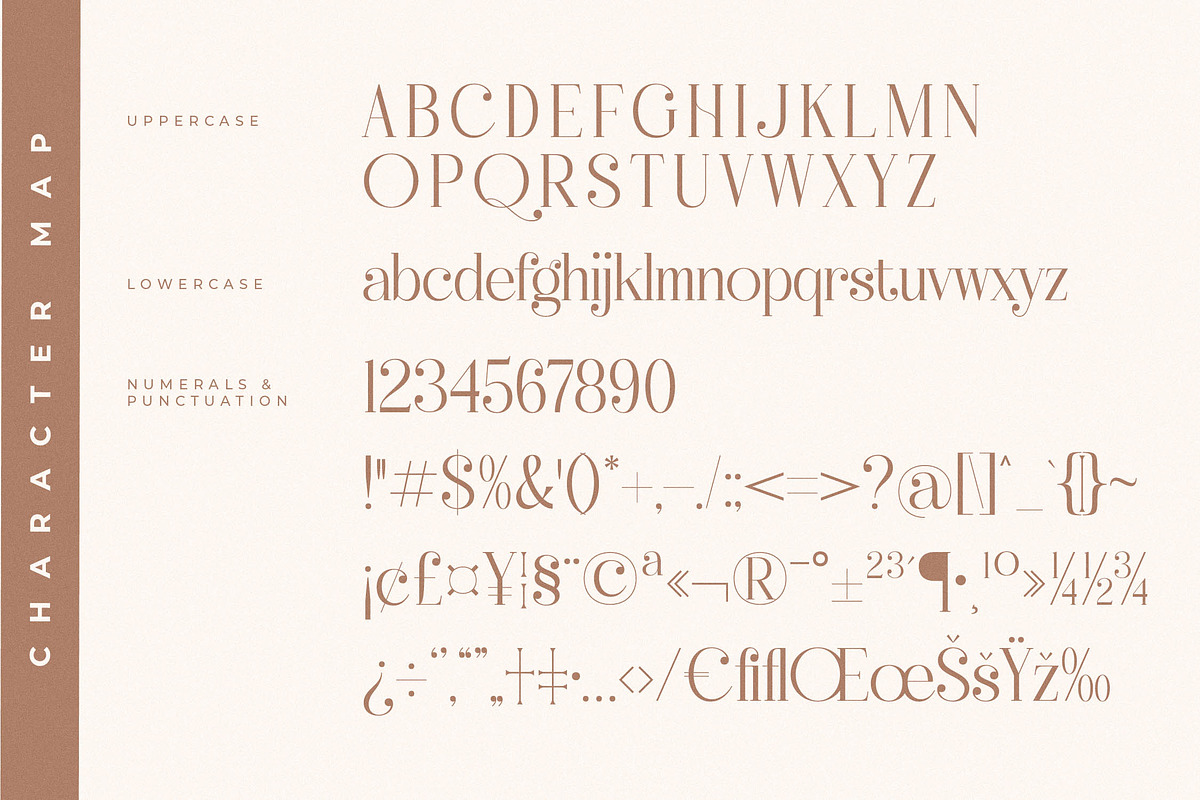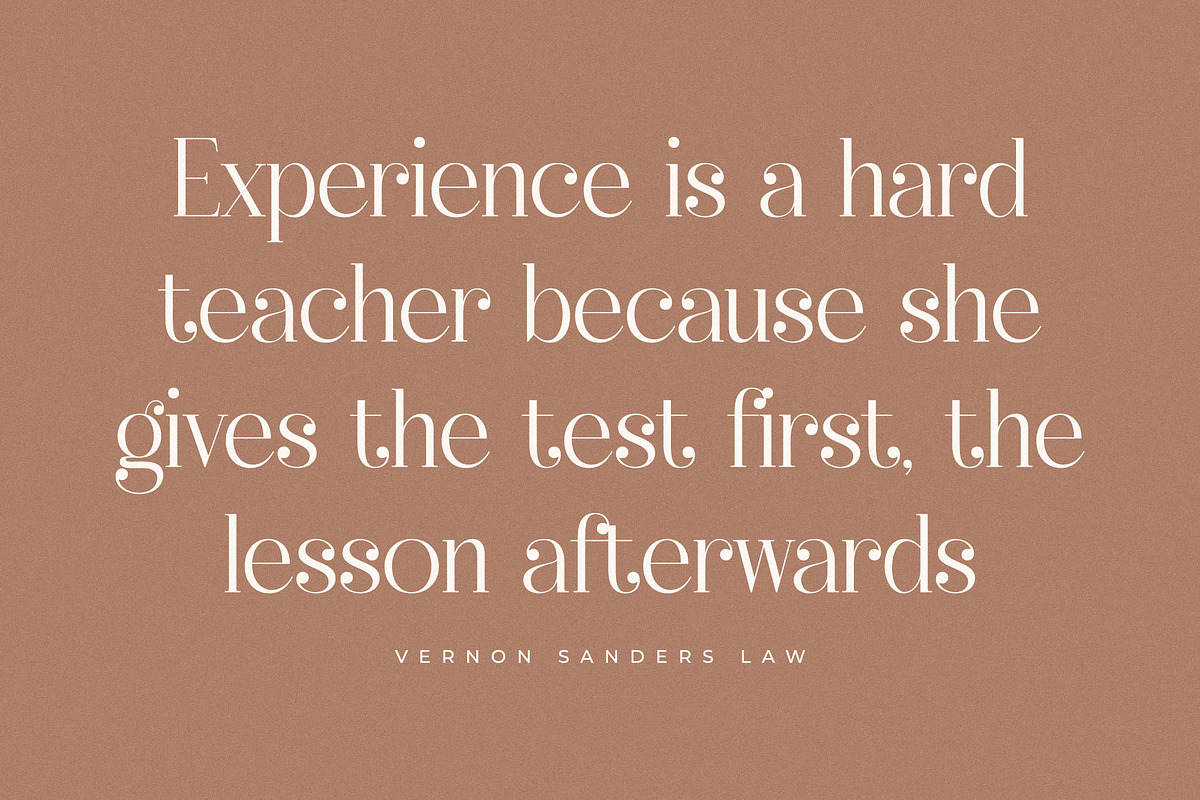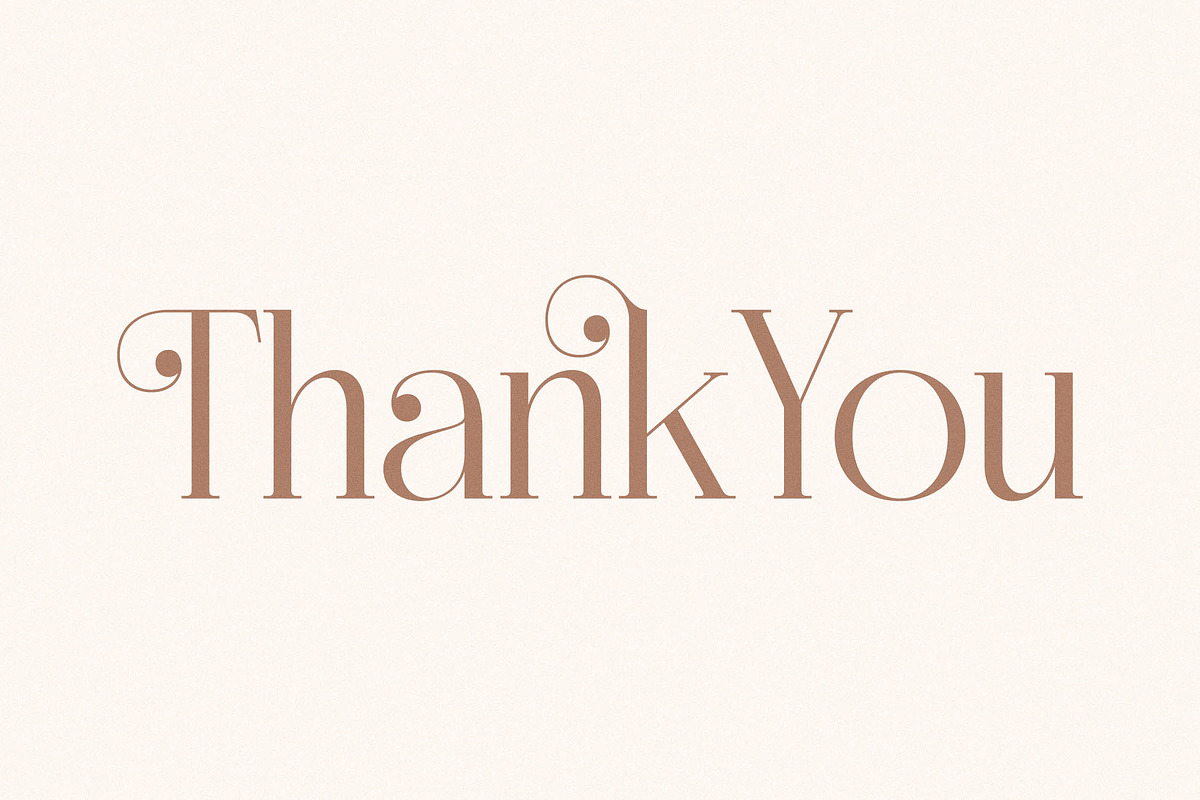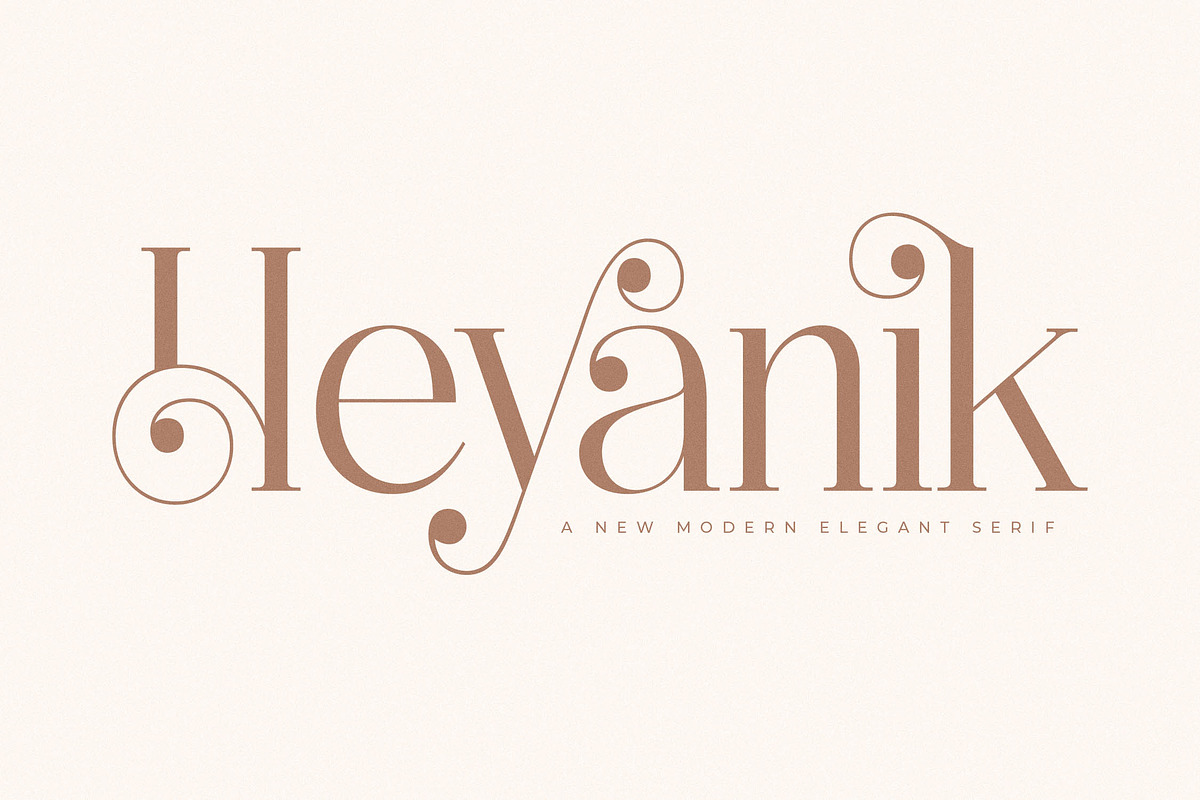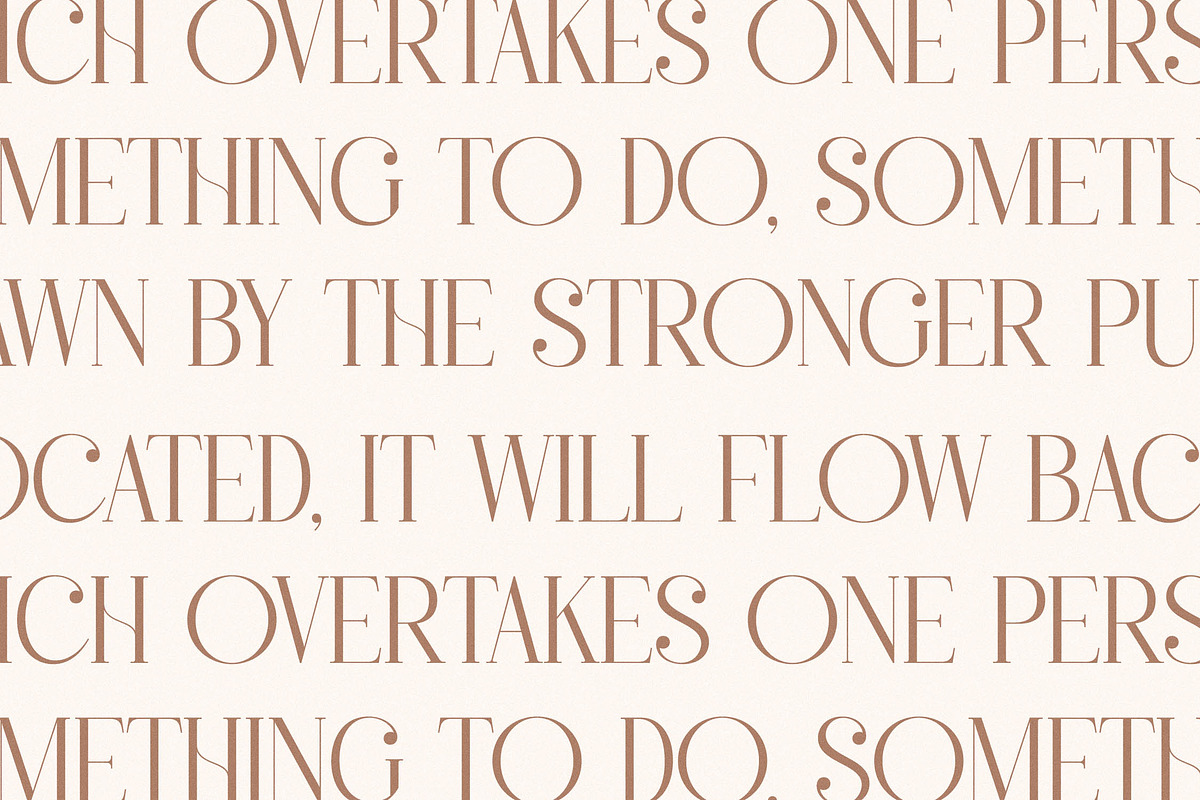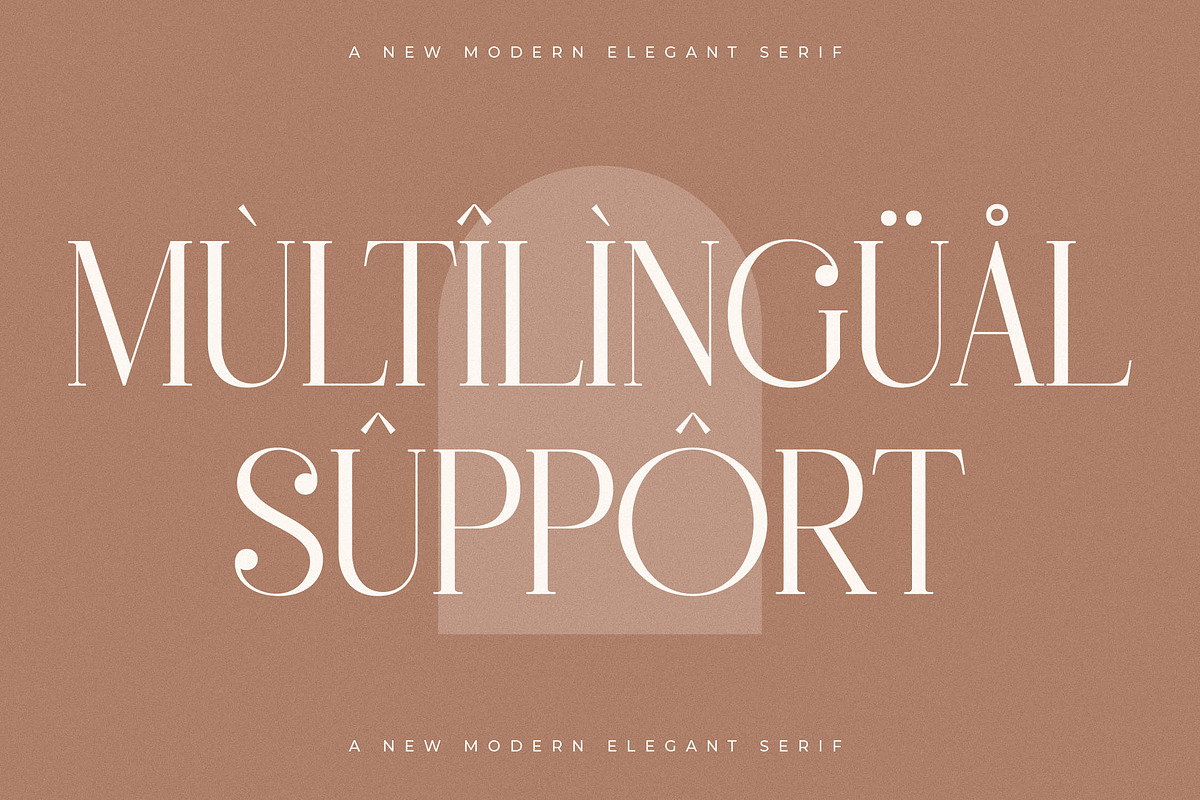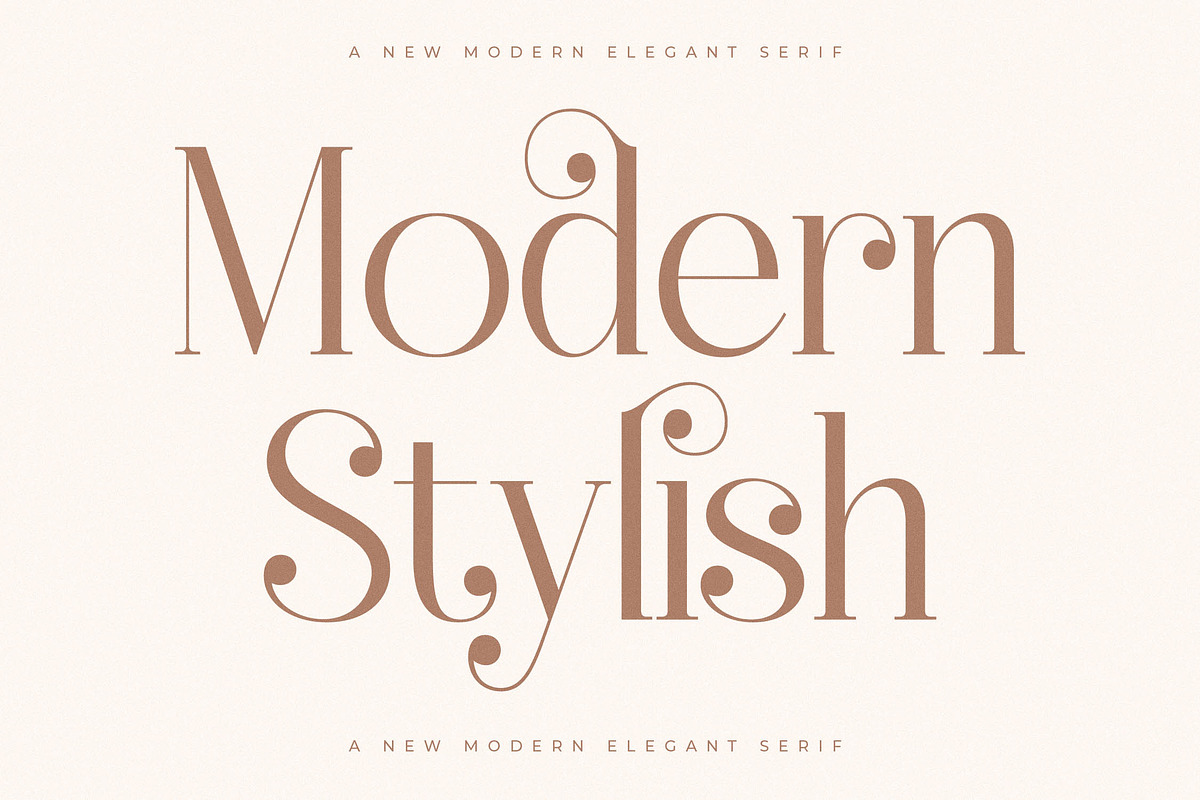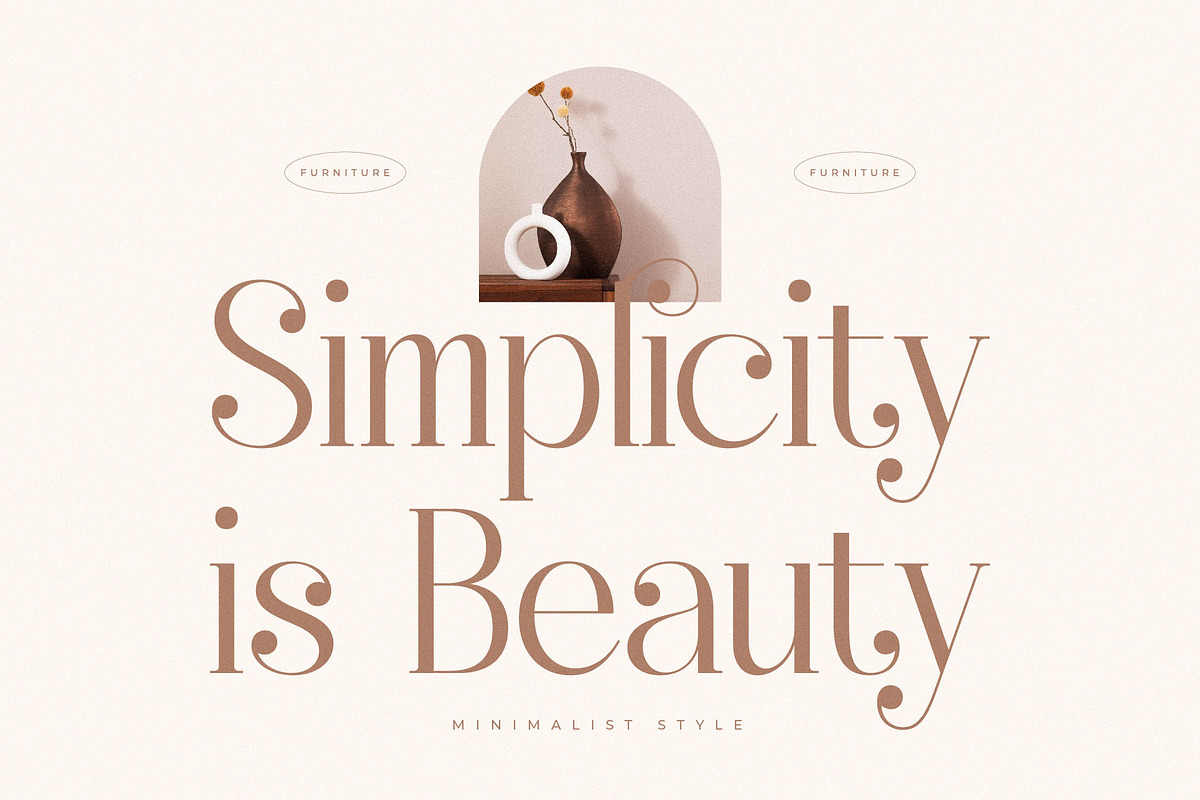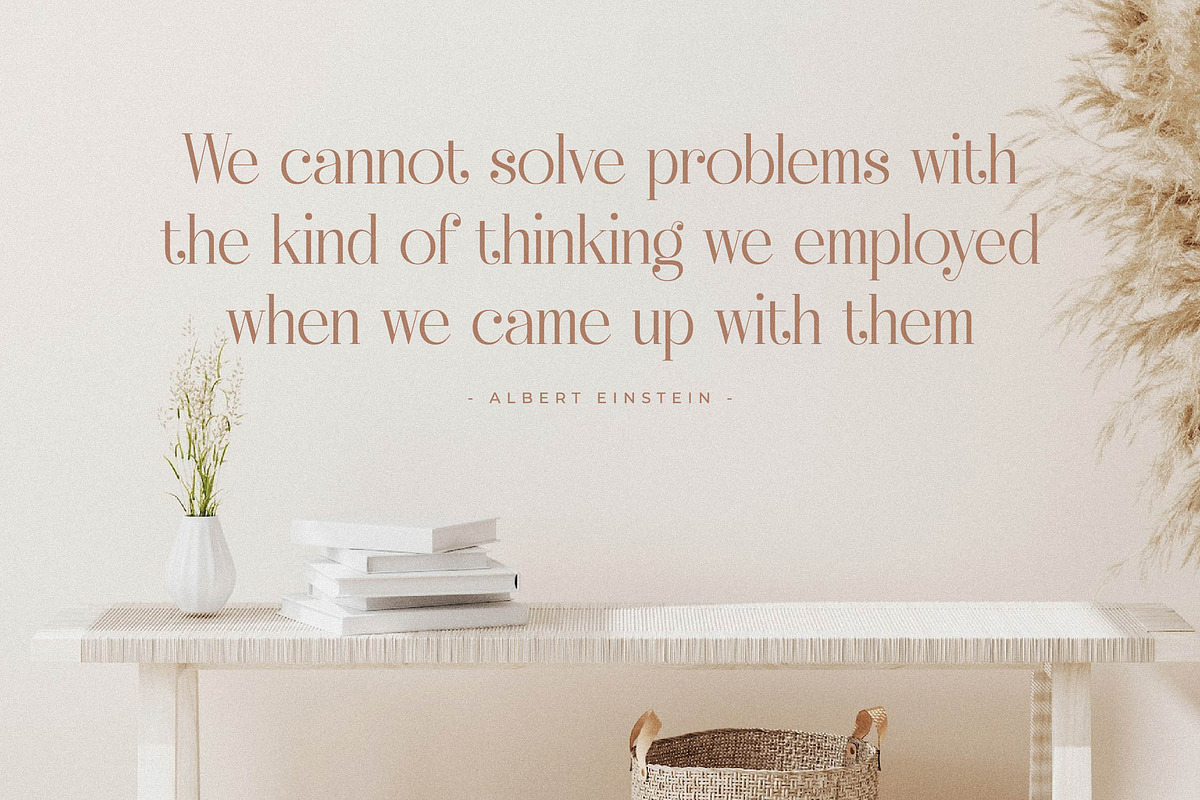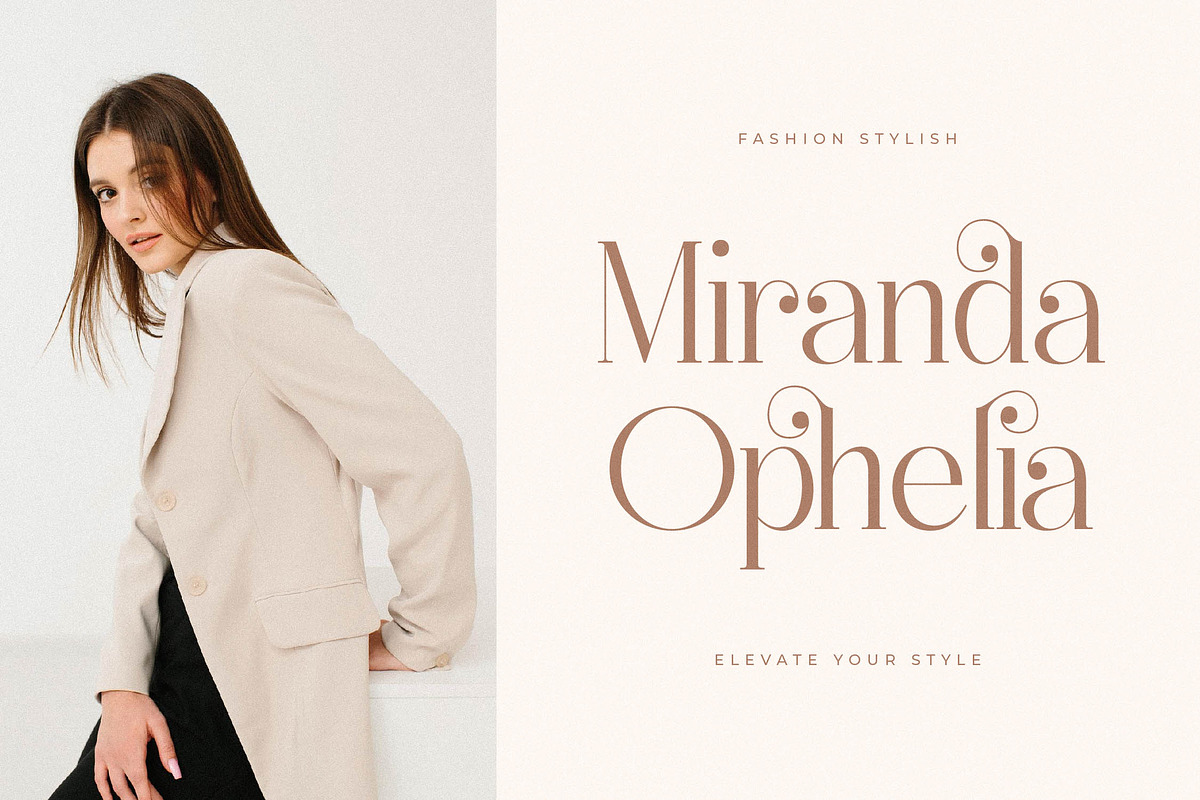
Heyanik New Modern Elegant Serif
Proudly present Heyanik Typeface , created by Storytype, A serif modern and classic typeface that has own unique style & modern look. This typeface is perfect for an elegant & luxury logo, book or movie title design, fashion brand, magazine, clothes, lettering, quotes, and so much more.